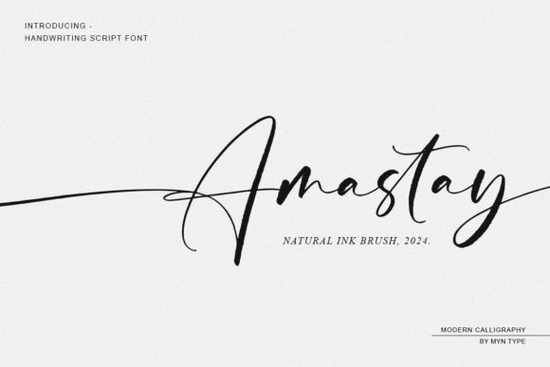
If you've been looking for a cursive calligraphy font that actually feels hand-drawn rather than overly polished, Amastay is worth a closer look. It's a natural ink handwriting font with swash tails that brings an organic, textured feel to any design. The rhythm of its letterforms mimics real elegant handwriting, which makes it a solid choice for projects where authenticity and warmth matter.
What Does Amastay Font Actually Look Like?
Amastay has the character of real pen-on-paper calligraphy. The strokes vary naturally, and the ink texture gives each letter a handmade quality. The swash tails add a flowing, decorative touch without going overboard. It doesn't feel stiff or overly digital it looks like someone actually sat down and wrote it by hand.
That organic quality is what sets it apart from many handmade script typefaces that can sometimes appear too uniform or mechanical. If your project needs personality over perfection, this font delivers that.
Where Does This Font Work Best?
Amastay is versatile enough for a range of creative projects. Here are some common uses:
- Wedding invitations and save-the-date cards
- Logo design for small businesses, especially in beauty, fashion, or lifestyle
- Social media graphics and quote posts
- Greeting cards and stationery design
- Print-on-demand products like mugs, tote bags, and t-shirts
- Blog headers and website accents
The swash details make it especially fitting for projects that need a touch of elegance, like bridal branding, boutique packaging, or product labels for handmade goods.
Is It a Good Fit for Print-on-Demand Sellers?
Yes, and here's why. Print-on-demand sellers need fonts that are eye-catching but still readable at different sizes. Amastay strikes that balance well. The ink texture shows up nicely on larger designs like posters or wall art, and the clean letter spacing keeps it legible on smaller items like phone cases or stickers.
That said, if you're working on designs where a cleaner, more minimal script would suit better, something like the Tranquilo monoline script could be a better match. It depends on the style and market you're targeting.
Can You Pair It With Other Fonts?
Absolutely. Amastay works well alongside simple sans-serif fonts for contrast. Think of pairing it with a clean geometric typeface for body text while using Amastay for headlines or featured words. This kind of combination is a staple in branding and editorial design.
For a layered effect, some designers combine it with other script styles. For example, Breathine has a lighter, more delicate flow that pairs nicely when you want two different script looks in one layout. Or if you prefer something more grounded and straightforward, the Simple House typeface offers a no-nonsense style that balances out Amastay's decorative nature.
Take a few minutes to explore the swash options and alternate characters sometimes the best combinations come from unexpected pairings you wouldn't have planned.
Amastay is one of those fonts that adds instant character without much effort. If your project calls for something that feels personal and handcrafted, it's a strong option to have in your toolkit.